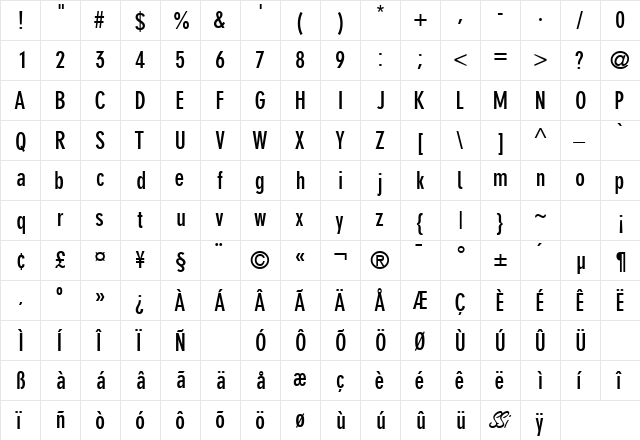
ParallaxGroteskCondSSK Bold
Design Context for ParallaxGroteskCondSSK Typeface
ParallaxGroteskCondSSK has the quiet confidence of well-executed sans-serif typography: versatile, unobtrusive, and dependable at any size. Its bold stroke weight gives it real presence on the page. The condensed width makes it efficient for tight spaces without sacrificing legibility.
A strong choice for UI design, app interfaces, bold signage, and corporate brand systems.
Font Pairing: Use ParallaxGroteskCondSSK for headlines alongside a lighter-weight sans or serif for body copy to establish clear visual hierarchy.
Pro Tip: Try ParallaxGroteskCondSSK in all-caps with moderate tracking for navigation and label copy — it performs well in systematic UI contexts.